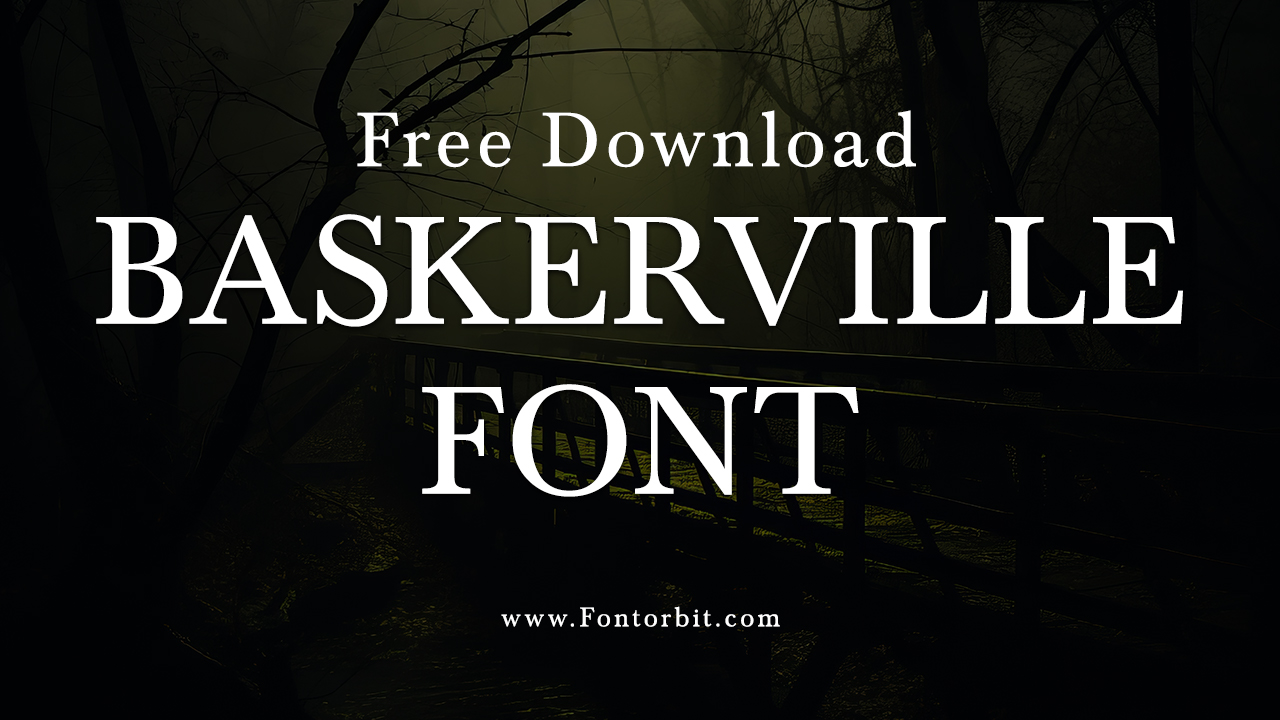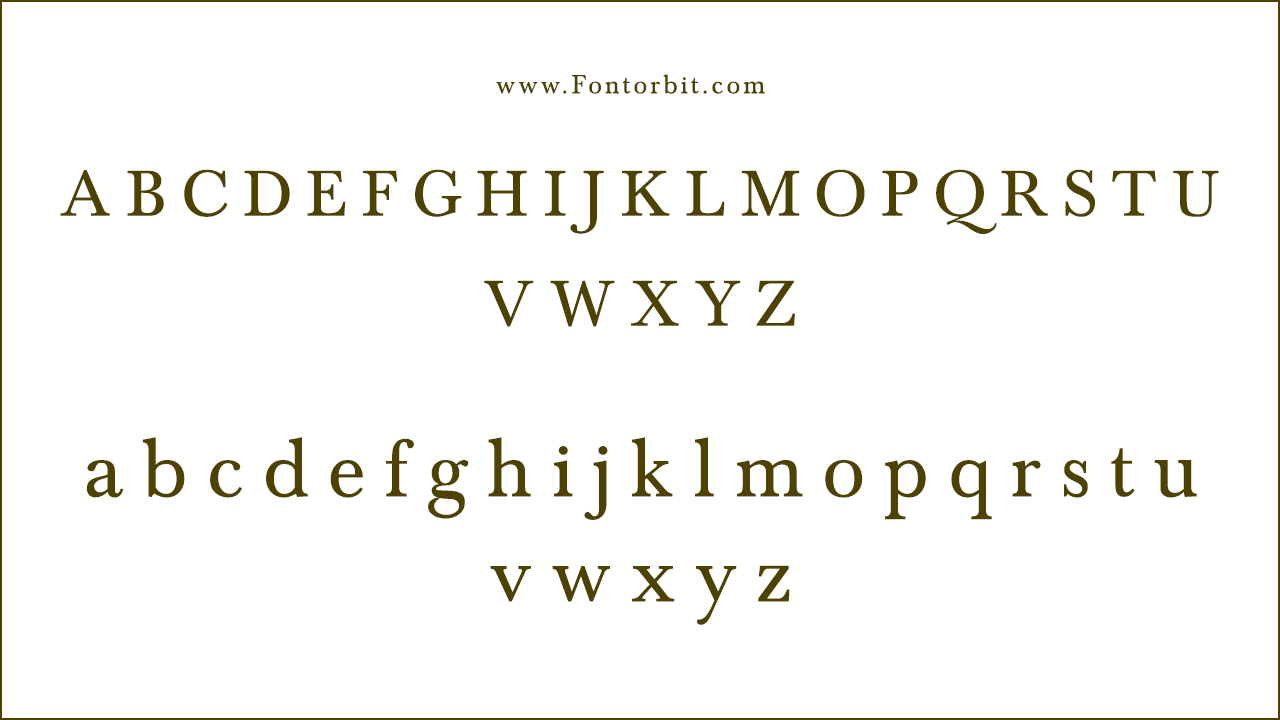
Baskerville font is a classic serif typeface designed by John Baskerville in the 1750s. Known for its elegance and high contrast, it has become a staple in typography for its readability and sophistication. This font is perfect for a wide range of design projects, offering a refined and timeless appeal.
Type Of Baskerville Font (Font Family)
The Baskerville font family offers various styles and weights, making it versatile for different design needs. Each version provides unique options for emphasis and style, ensuring flexibility in design applications. The family includes:
- Baskerville Normal
- Baskerville Regular
- Baskerville Light-Italic
- Baskerville Light
- Baskerville LightA
- Baskerville Bold
- Baskerville BT Roman
- Baskerville BT Italic
- Baskerville BT Bold
- Baskerville BT Bold Italic
Using Occasions Of The Baskerville Font
- Fashion magazines
- Luxury brand logos
- High-quality print publications
- Editorial design
- Book printing
- Graphic design
The Baskerville Font Found In Use
Baskerville is frequently used in prestigious publications and high-end branding. Its clean lines and high contrast suit luxury goods, scholarly articles, and classic literature. The font’s versatility shines in print and digital media, making it a favorite among designers seeking elegance and readability.
Today, the Baskerville font is widely used in graphic design for editorial projects, branding, and high-quality print materials. Its elegant serif design makes it popular for book covers, luxury branding, and sophisticated advertising.
The Baskerville font stands out for its high contrast between thick and thin strokes, sharp serifs, and vertical stress. Its timeless design has made it a favorite in various applications, from print to digital media. Whether you’re looking to add a touch of elegance to your project or seeking a reliable typeface for high-quality printing, Baskerville remains a top choice.
1.What Are The Main Features Of The Baskerville Font?
The Baskerville font is known for its high contrast between thick and thin strokes, sharp serifs, and vertical stress.
2.Where Is The Baskerville Font Commonly Used?
The Baskerville font is commonly used in fashion magazines, luxury brand logos, high-quality print publications, editorial design, book printing, and graphic design.
4.What Are The Cultural Influences On The Development Of Baskerville Font?
Baskerville was influenced by the transition from old-style typefaces to more refined, modern typefaces. John Baskerville’s work reflected the cultural shift towards precision and elegance in printed materials, moving away from the designs of William Caslon and embracing more clarity and contrast.
5.What Are The Best Color Combinations To Use With Baskerville Font?
Baskerville pairs well with classic color combinations such as black and white, deep navy, and rich burgundy. For a modern touch, try it with muted tones like slate gray or earthy greens.
6.What Are The Best Practices For Using Baskerville Font In Web Design?
For web design, ensure good readability by using sufficient contrast between text and background. Maintain font sizes that are large enough for comfortable reading. Pair Baskerville with sans-serif fonts like Helvetica Neue or Gill Sans for a balanced look.
7.What Makes Baskerville Font Unique?
Baskerville is unique due to its high contrast between thick and thin strokes, sharp serifs, and vertical stress. These characteristics give it a distinctive elegance and clarity that distinguishes it from other serif typefaces.